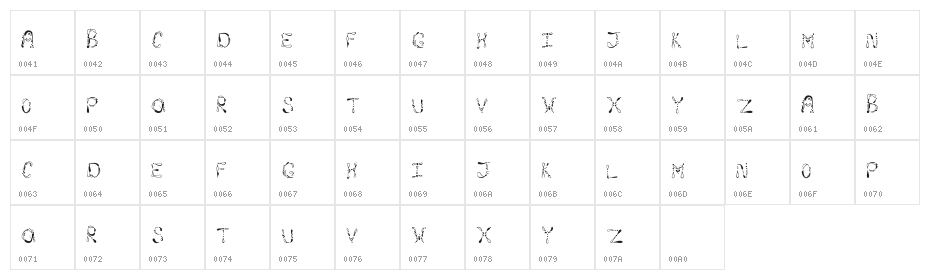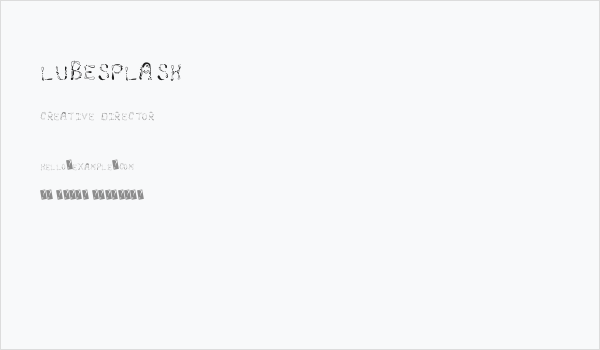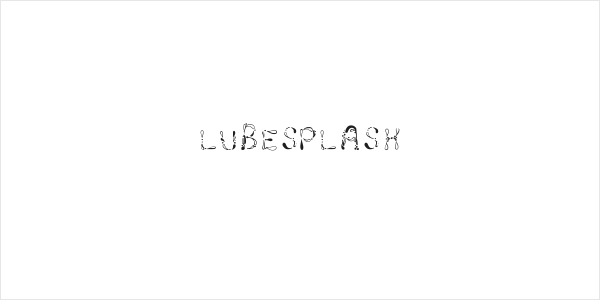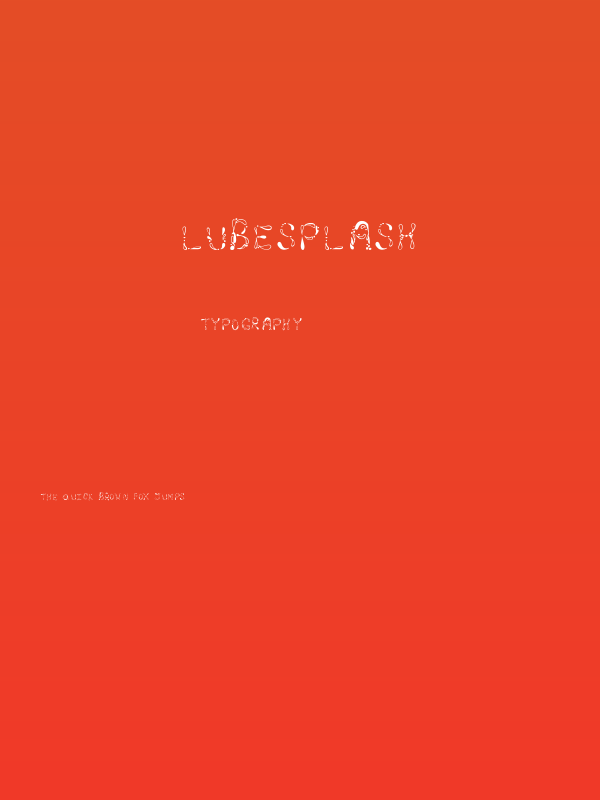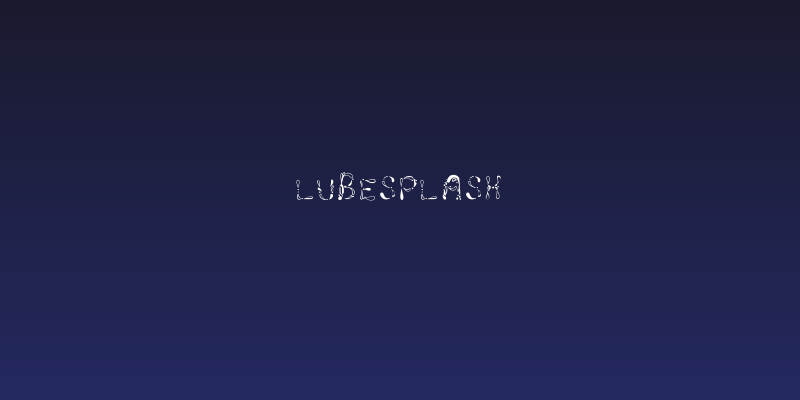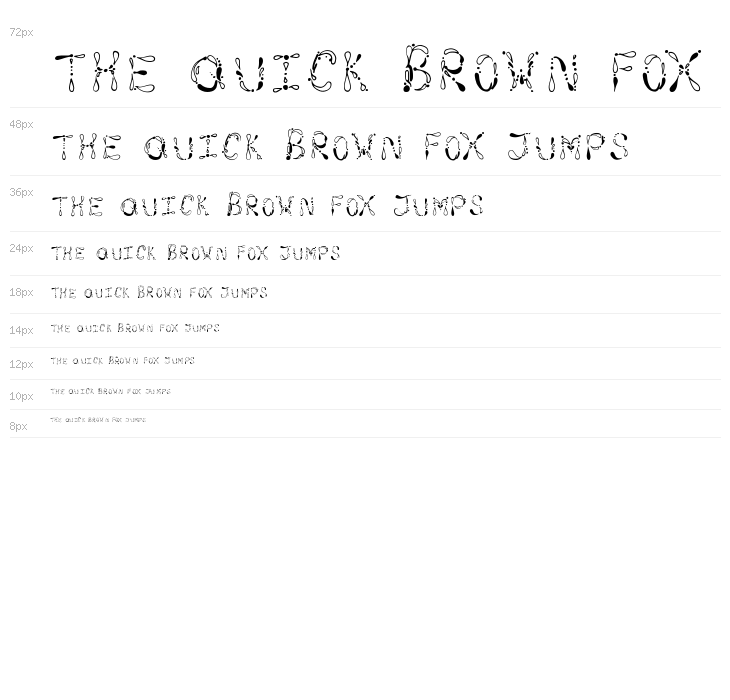
LubeSplash Font
LubeSplash Description
This font features a playful and whimsical design, characterized by its unique use of liquid-like droplets and splashes that form each letter. The characters are composed of various-sized blobs and drips, giving the font a fluid and dynamic appearance. The uppercase and lowercase letters maintain a consistent style, with each character appearing as if it is melting or dripping. This creates a sense of movement and energy, making it ideal for creative and artistic projects. The font's distinct style is both eye-catching and memorable, perfect for designs that require a touch of fun and creativity.
| Use Case | Logos, Headlines, Posters |
| Proposed Projects | Ideal for children's book covers, playful branding, creative posters, and artistic event invitations. |